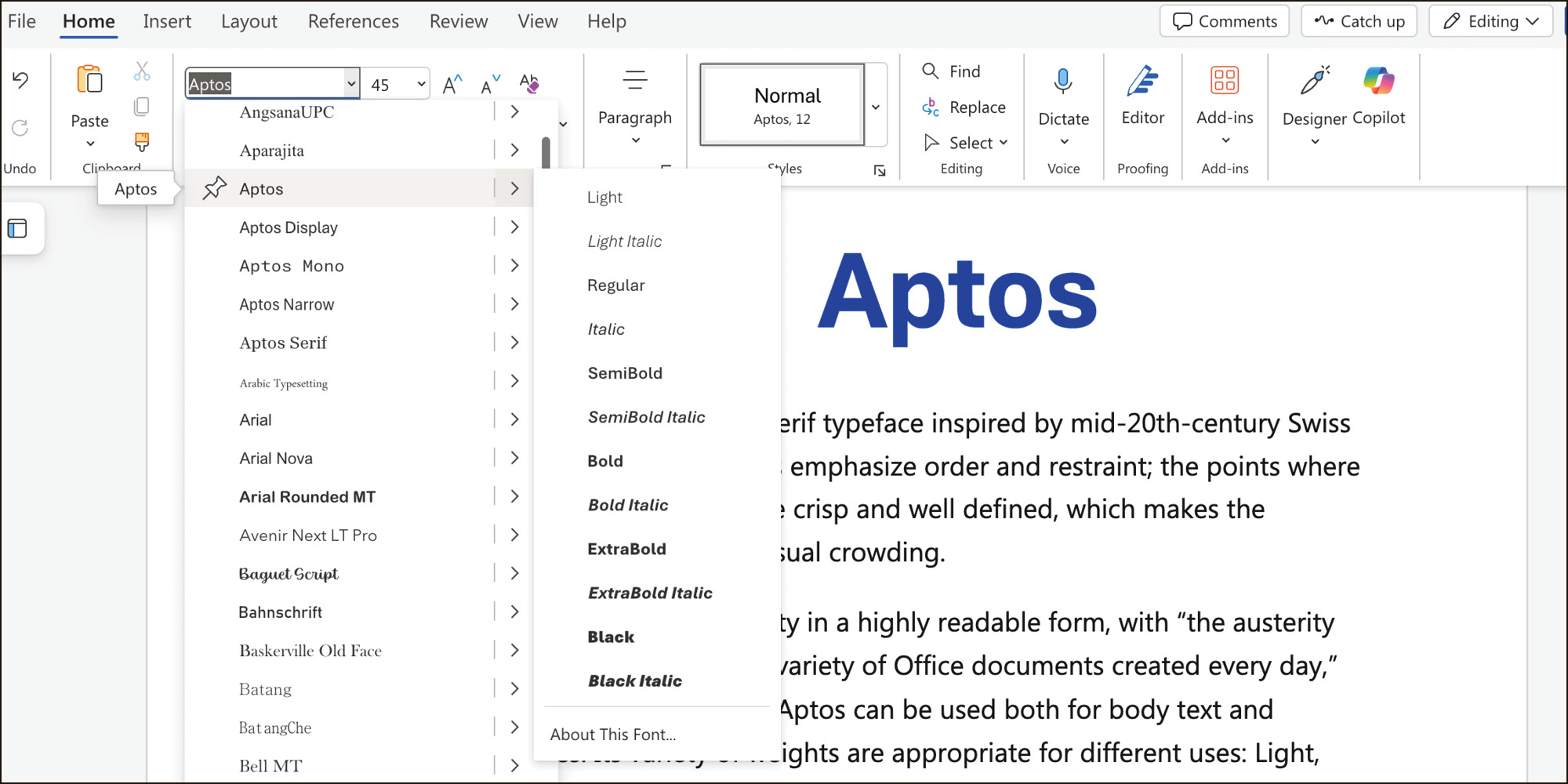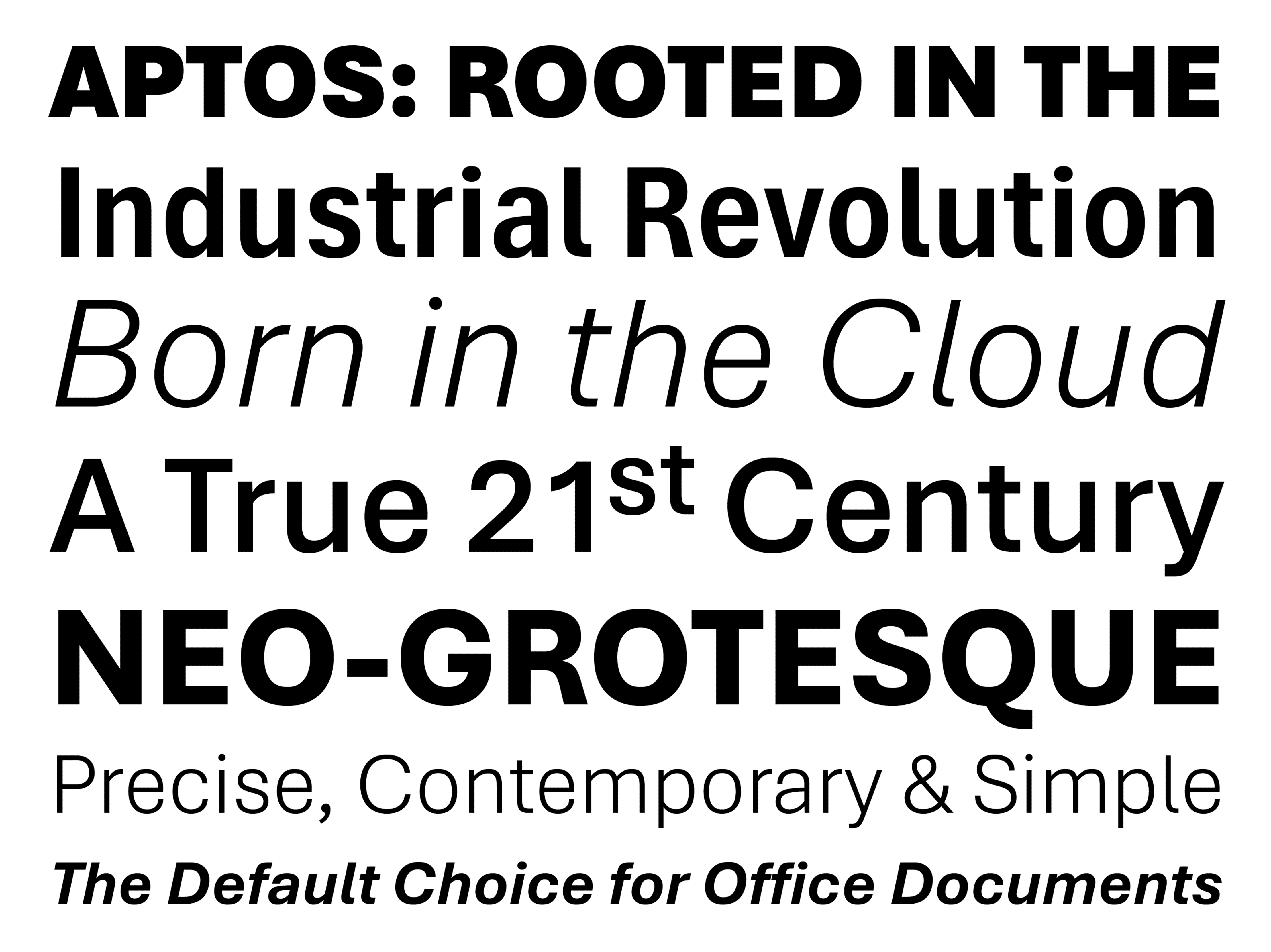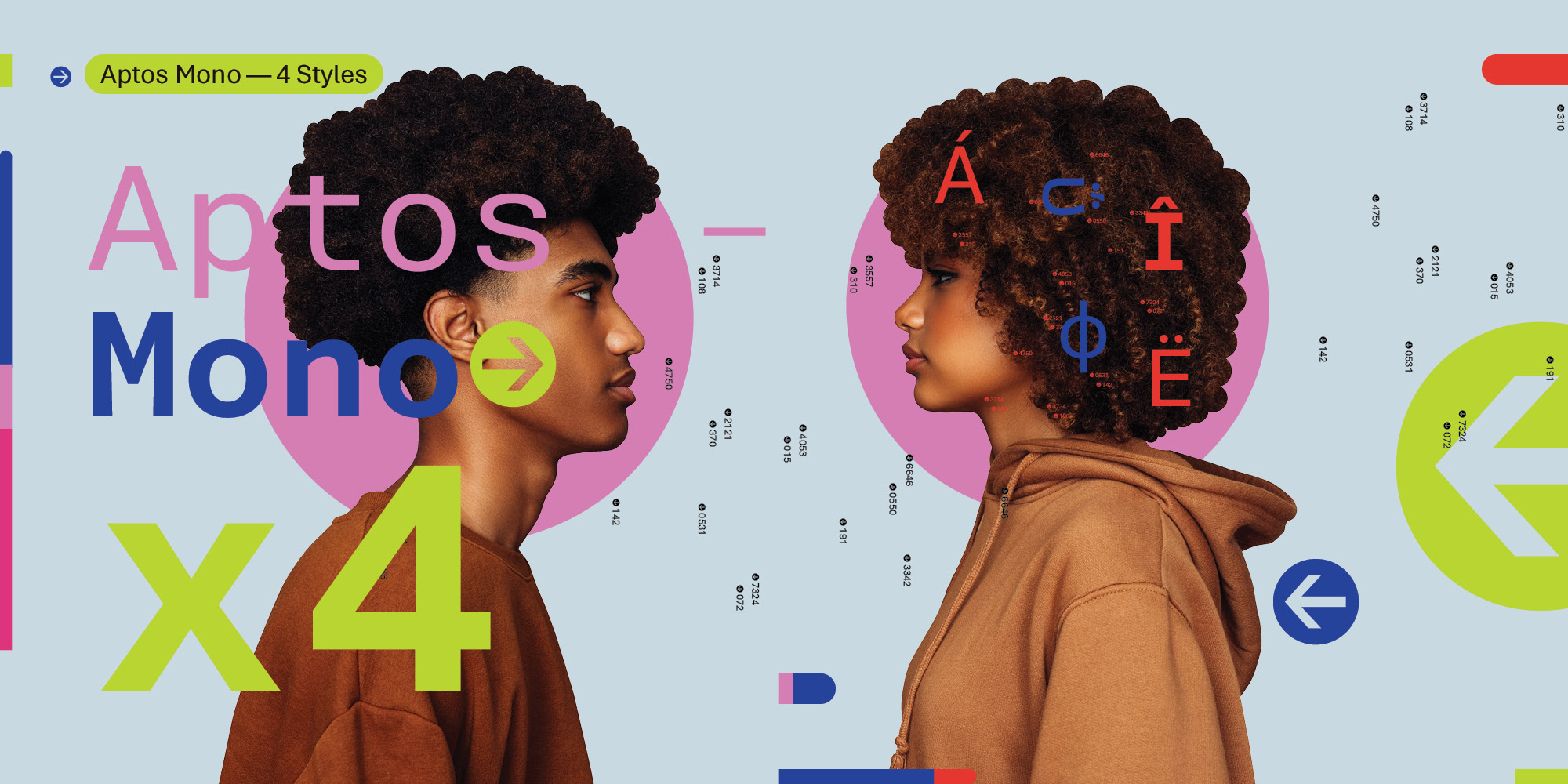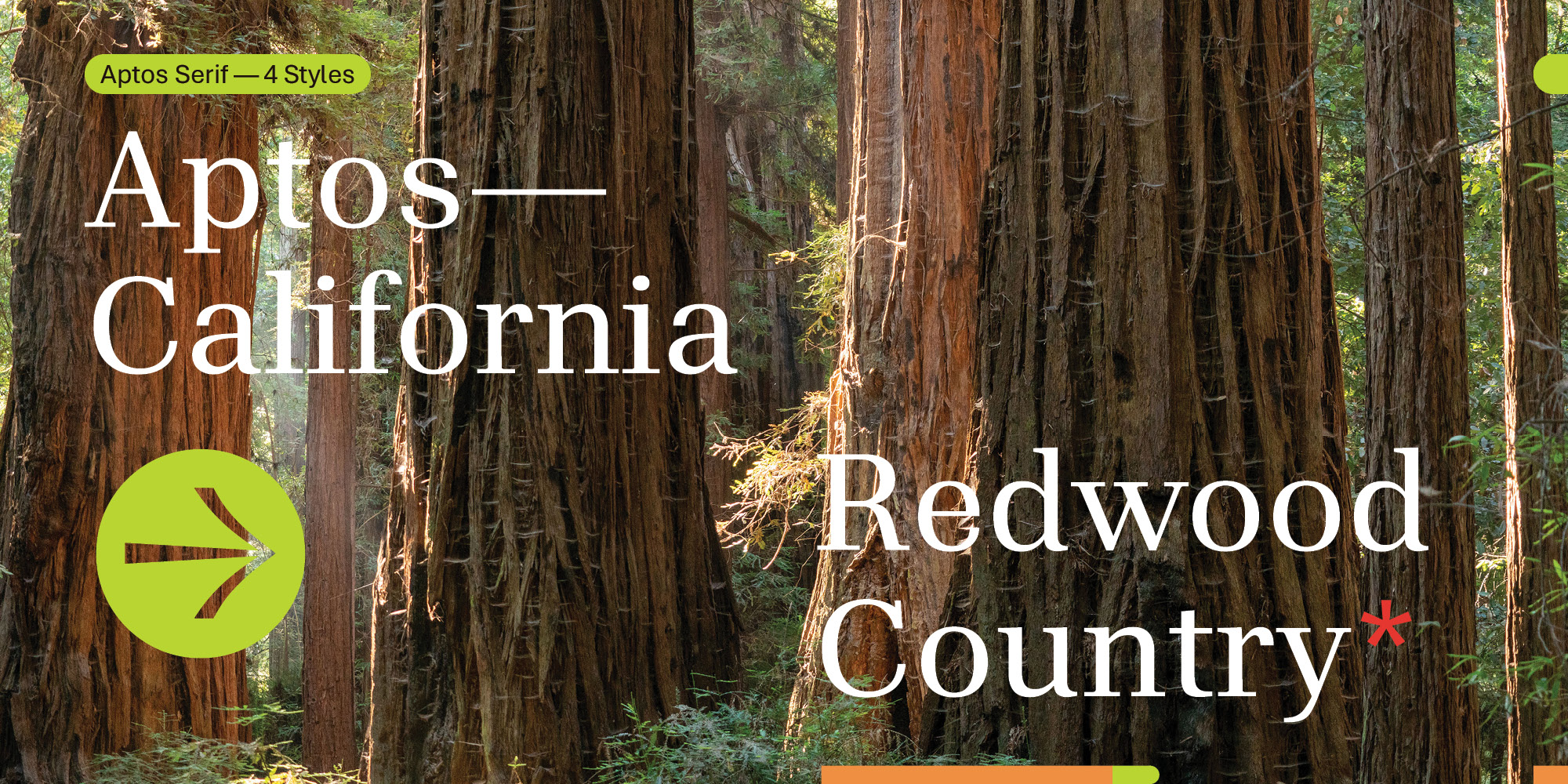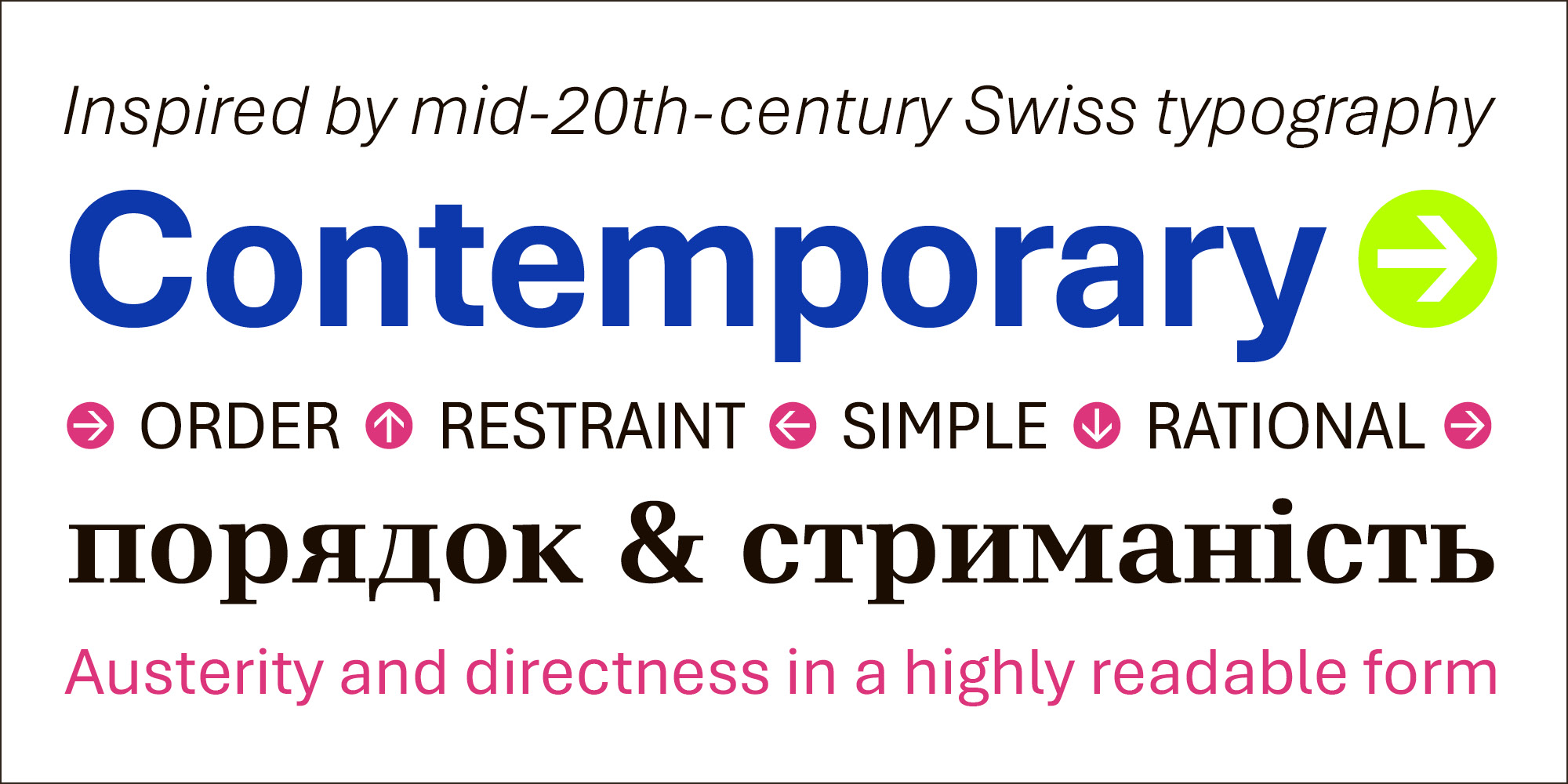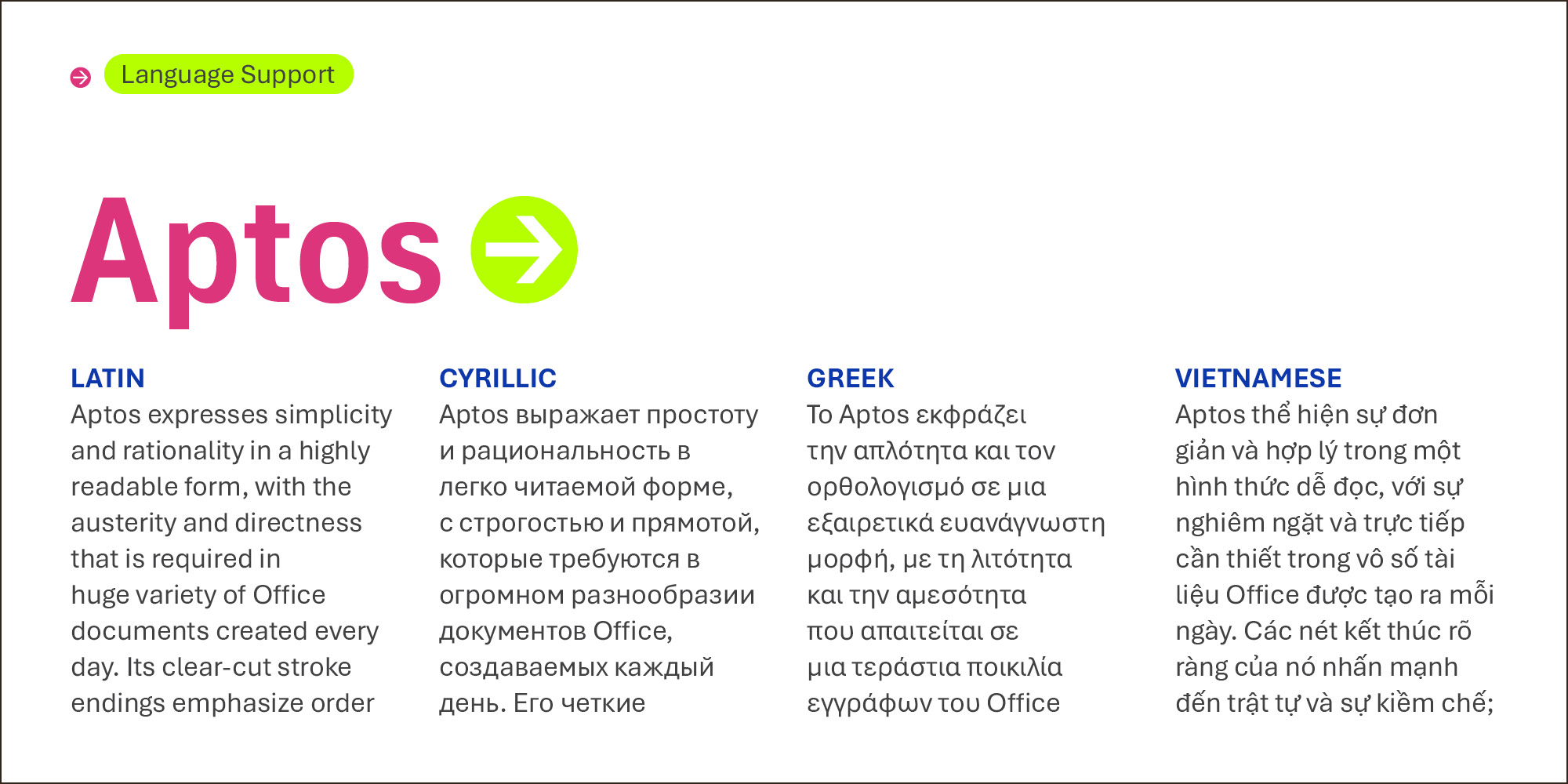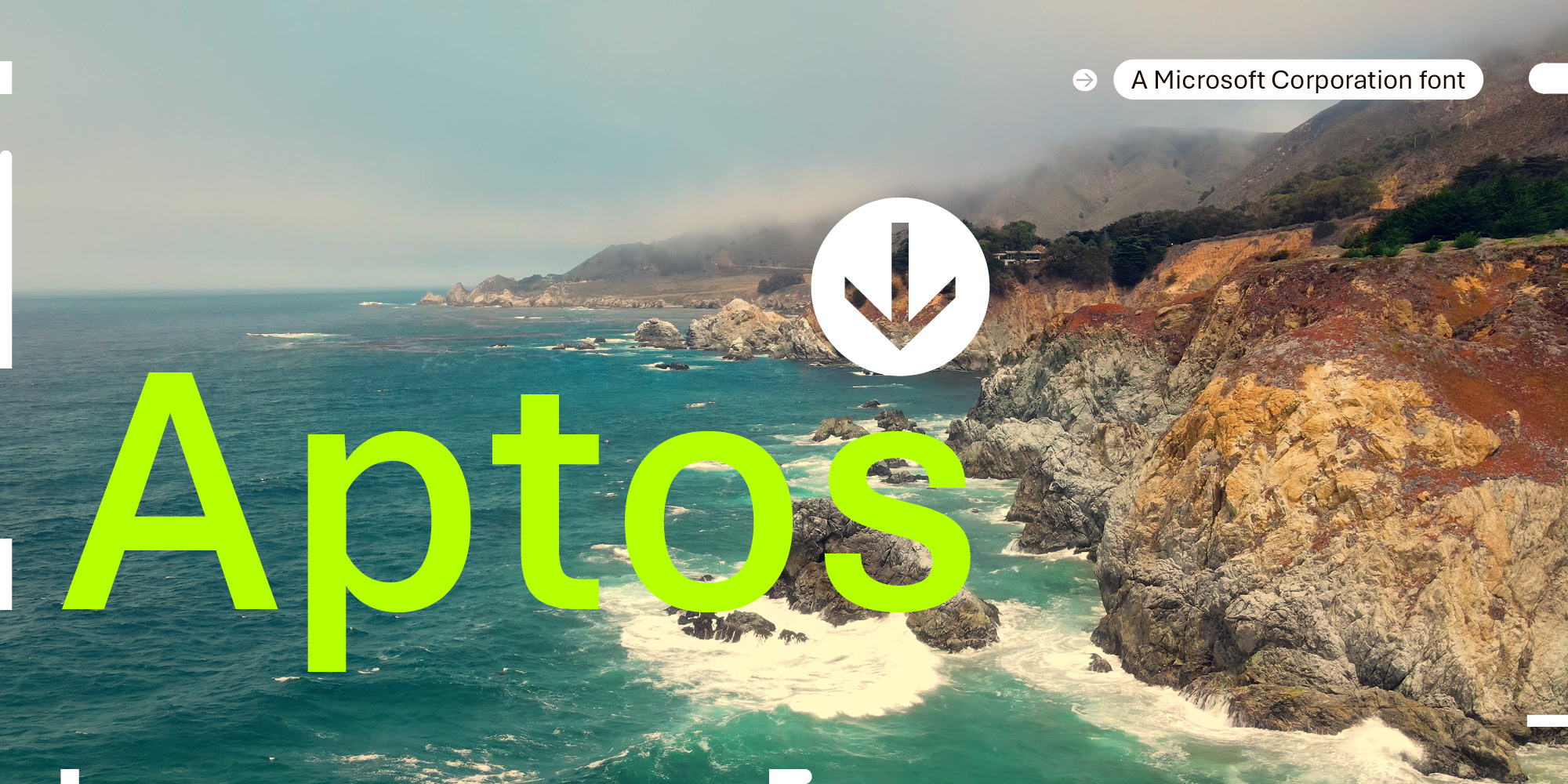
Aptos is a precise, contemporary sans serif typeface inspired by mid-20th-century Swiss typography. Its clear-cut stroke endings emphasize order and restraint; the points where curved strokes meet straight strokes are crisp and well defined, which makes the typeface easily readable and reduces visual crowding.
Aptos expresses simplicity and rationality in a highly readable form, with “the austerity and directness that is required in huge variety of Office documents created every day,” according to designer Steve Matteson. Aptos can be used both for body text and headlines and for titles. Its variety of weights are appropriate for different uses: Light, Semibold, and Black weights can help create a hierarchy of information in PowerPoint and Word documents, while the Condensed weights give Excel users a way to fit more information into spreadsheets and tables. The Display versions are slightly narrower and more closely fitted, to give very large text a crisp authority.
Type designer Steve Matteson designed Aptos for Microsoft as a new default Office font to replace Calibri. It has six weights, from Light to Black, with complementary oblique styles. (In this style of typeface, the italic doesn’t typically take on the cursive forms you’d expect in handwriting or a traditional serif typeface; the letter shapes are oblique forms of the upright letters. The italics of Aptos have been individually redrawn, rather than mechanically slanted.) Aptos also has two Display weights, with their accompanying italic styles, and two Condensed weights, with italics. Aptos offers extended support of the Latin, Greek, and Cyrillic alphabets, and for Vietnamese.
| Designers | Steve Matteson |